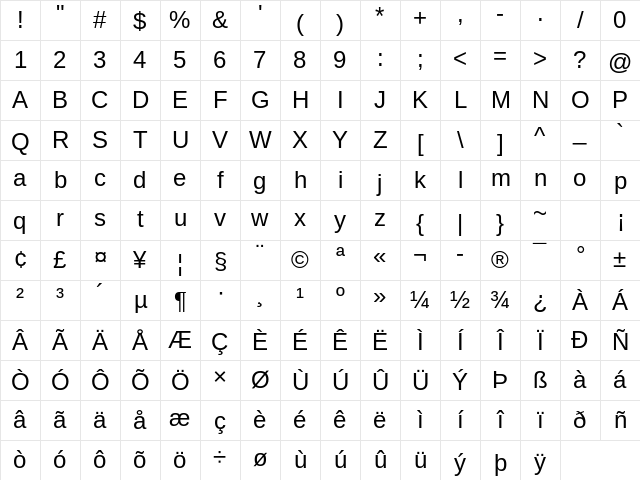
Complete Arimo Nerd Font Regular glyph index. Displaying only characters natively supported by Arimo Nerd Font Regular font.
Arimo Nerd Font is a composed and adaptable typeface that performs quietly and consistently across a wide range of design contexts.